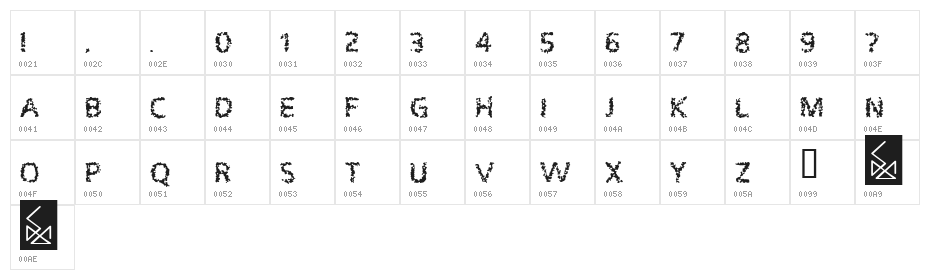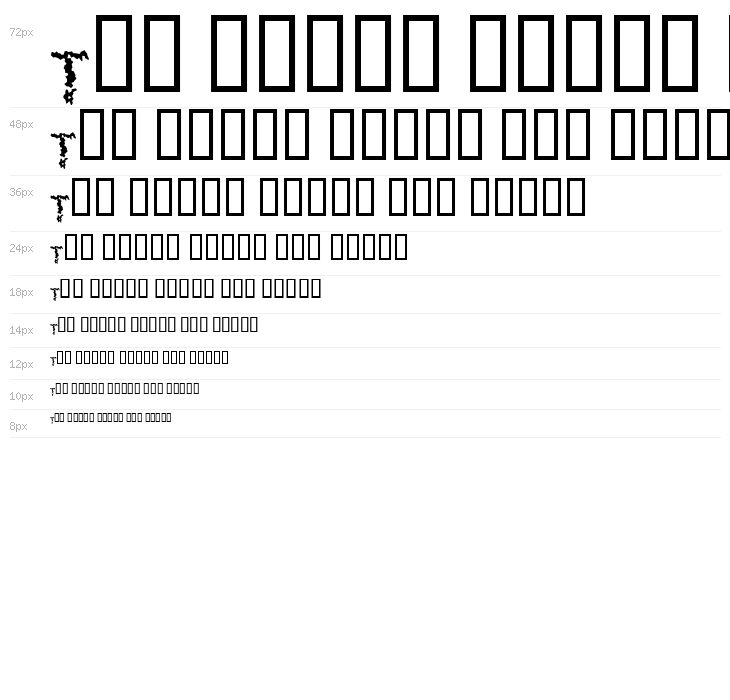
DRAGON Font
DRAGON Description
This font features a unique, textured design that resembles the scales or rugged surface of a dragon. The characters are bold and have an organic, uneven edge that gives them a dynamic and fierce appearance. The uppercase letters are particularly striking, with each character appearing as if it has been carved or eroded by natural forces. The numbers maintain this rugged style, ensuring consistency across the font. This font is ideal for projects that require a dramatic and impactful visual element, such as fantasy-themed designs, video game titles, or branding for products that want to convey strength and mystery.
| Proposed Projects | Fantasy-themed designs, video game titles, branding for strong or mysterious products. |